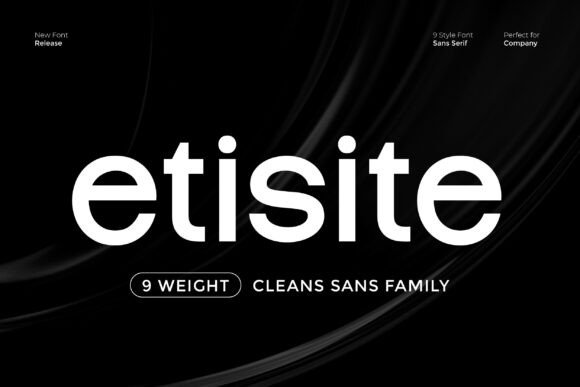
Etisite: A Clean Sans Serif Font for Modern Makers and Creative Sellers
Etisite in Action: Designing a Candle Label with Clarity and Style
Etisite is a clean sans serif family font that immediately caught my eye when I was working on a new candle label design for my Etsy shop. As a maker who values both aesthetic appeal and production practicality, I was looking for a font that could convey elegance without sacrificing readability. Etisite delivered exactly that. Its well-balanced proportions and smooth curves gave my candle labels a modern, professional finish that felt both refined and approachable. Whether I was using it for a short product name or a tagline like “Serenity in a Jar,” Etisite maintained its clarity at small sizes, which is essential for product labeling.
Etisite for Wedding Invitations: Elegance Meets Simplicity
Fonts play a crucial role in setting the tone for wedding stationery, and Etisite surprised me with how versatile it is in this space. I used it for a minimalist wedding invitation suite — pairing it with a script font for the names and keeping the rest of the text in Etisite’s clean sans serif style. The result was elegant yet understated, perfect for couples who appreciate modern design without being overly formal. Etisite worked beautifully in both digital and printed formats, maintaining its crispness whether I was sending out a printable PDF or printing on textured cardstock. The font’s refined simplicity helped elevate the overall look of the invitation without overshadowing the content.
Using Etisite for Boutique Packaging and Product Tags
When it comes to boutique-style packaging, typography can make or break the perceived value of a product. Etisite is a font that effortlessly bridges the gap between editorial design and commercial use. I tested it on small product tags for handmade soaps and found that it held up remarkably well even at 8pt size. The smooth curves and open spacing contributed to its legibility, making it a great choice for product tags, clothing labels, and boutique hang tags. Whether I was designing a kraft paper tag or a glossy sticker for a candle jar, Etisite gave a consistent, polished look that enhanced the overall brand identity. It’s especially effective for makers who want a modern sans serif font that reads well in both print and digital formats.
Etisite for Digital Downloads and Planner Pages
Digital product creators know how important it is to have a font that works seamlessly across different platforms and file types. Etisite proved to be a reliable choice when I was designing a set of minimalist planner pages and printable wall art. The font’s clean lines and modern feel gave the pages a cohesive, professional look that translated well on both screen and print. I especially appreciated the font’s flexibility — I could use a bolder weight for headings and a lighter one for subtle accents, all within the same typeface family. This made it easier to maintain visual consistency across multiple digital products. For anyone creating digital templates, SVG files, or Canva-compatible design assets, Etisite is a strong contender as a commercial font that supports a wide range of creative uses.
Etisite and Font Pairing: Finding the Right Match for Your Design
One of the standout features of Etisite is how well it pairs with other fonts. As a clean sans serif font, it works beautifully alongside a script or handwritten font for contrast, or with a simple serif font for a more traditional feel. I found that combining Etisite with a soft script for a wedding welcome board gave it a personal touch while keeping the layout modern and readable. For product packaging, I paired it with a bold display font for a dynamic logo and used Etisite for supporting text — a combo that gave the design both energy and elegance. If you're creating brand identity kits or social media graphics, Etisite’s versatility makes it a solid foundation for layered typography without overwhelming the visual space.